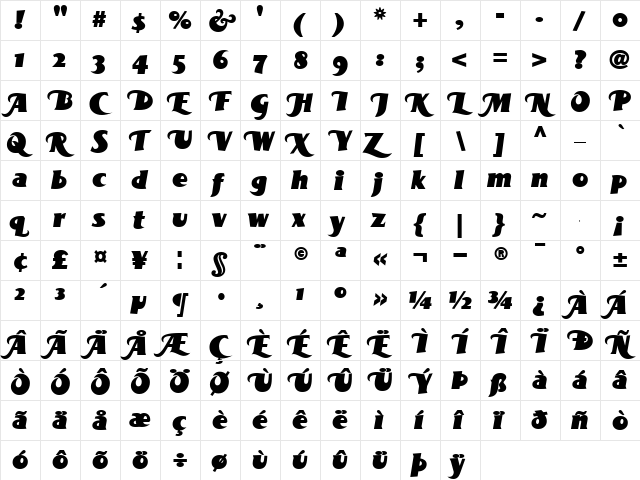
BottleKaps Swash ExpItalic Regular
Design Context for BottleKaps Swash ExpItalic Typeface
BottleKaps Swash ExpItalic brings a calligraphic fluidity to the page — its connecting strokes and expressive curves give it an unmistakably human quality.
Font Pairing: Combine BottleKaps Swash ExpItalic with a simple geometric sans for maximum contrast — the tension between flowing curves and clean structure is a classic typographic pairing.
Pro Tip: Use BottleKaps Swash ExpItalic for short runs of text — names, titles, or taglines. Extended body copy in script faces tires the eye quickly.